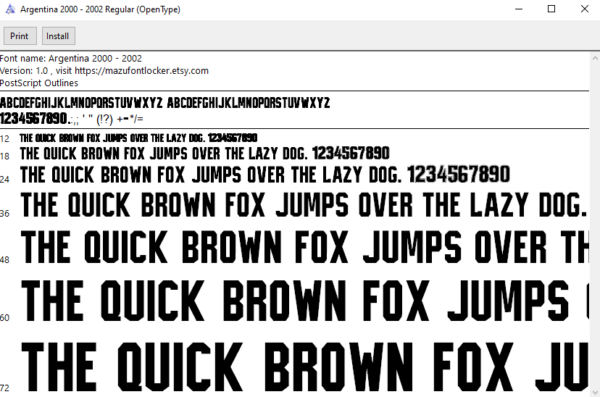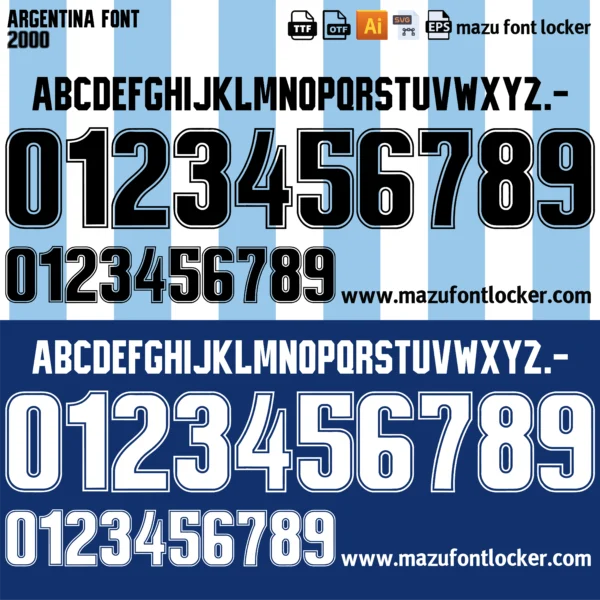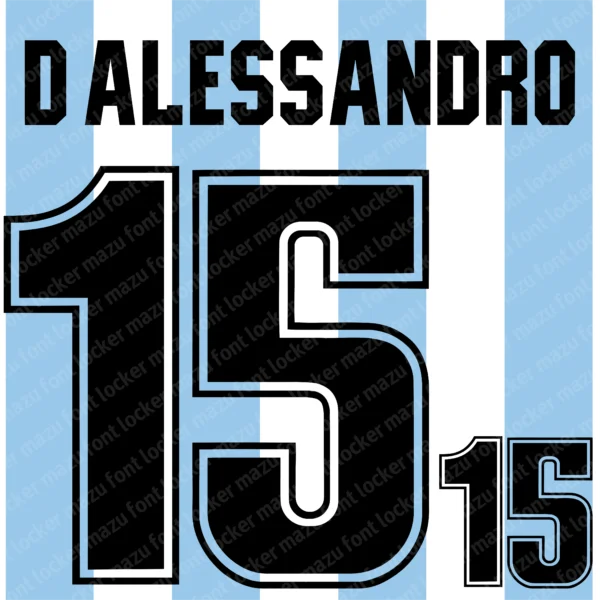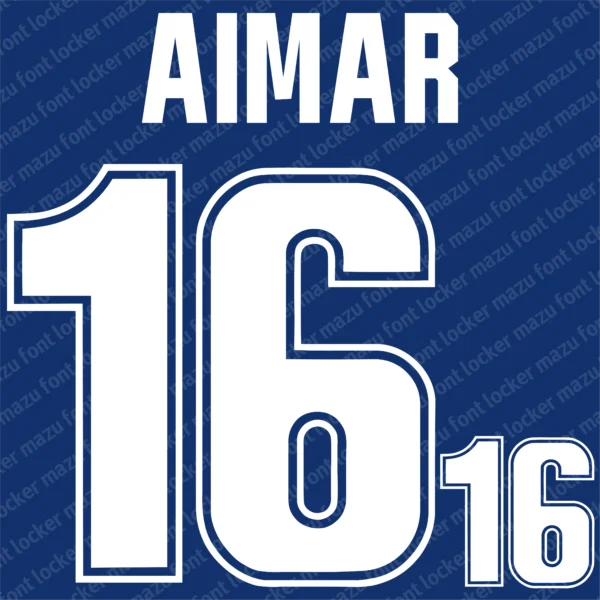
Argentina 2000 Font Vector – Stunning Albiceleste Legendary Masterpiece
Argentina 2000 Font Vector – Authentic Albiceleste Typeface
The Argentina 2000 Font Vector is a premium typeface that accurately recreates the official match lettering worn by the Argentina national team during the iconic 2000 era. This high-quality vector font kit captures the bold, elegant, and distinctive typography that represents one of the most stylish periods in Argentine football history.
Designed for professional designers and passionate Argentina fans, the Argentina 2000 Font Vector delivers perfect authenticity for creating realistic jersey mockups, fan merchandise, matchday posters, social media graphics, and much more. It blends beautifully with the classic sky blue and white Albiceleste home kit featuring the iconic AFA crest.
Why Choose Argentina 2000 Font Vector
This font stands out because of its sharp vector details and strong national identity. Every letter and number is crafted to match the exact style used on the players’ shirts during the Argentina 2000 period. Whether you are making realistic kit templates or nostalgic football content, the Argentina 2000 Font Vector gives your designs that authentic Albiceleste look.
The letterforms in the Argentina 2000 Font Vector are tall, bold, and highly readable. The strokes have a strong, clean weight with excellent edge definition that looks powerful on the back of jerseys while maintaining classic elegance and clarity.
• Full uppercase A–Z and numbers 0–9 in authentic Argentina 2000 style
• Create highly realistic Argentina 2000 home and away jersey mockups with accurate lettering
• Design stunning tournament posters, score graphics, and squad announcements
• Produce custom Albiceleste merchandise with a classic early 2000s football aesthetic
Argentina in 2000
The Argentina national team, famously known as the Albiceleste, delivered strong performances around the 2000 period with legendary players such as Gabriel Batistuta, Juan Román Riquelme, Diego Simeone, and young talents like Pablo Aimar. This era is remembered for technical brilliance and passionate football.